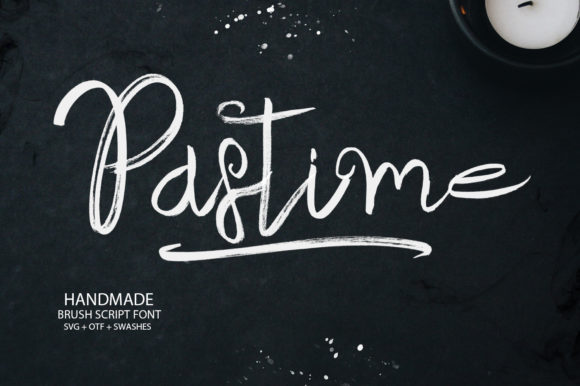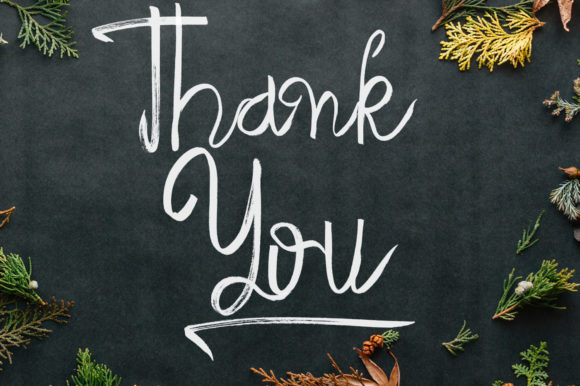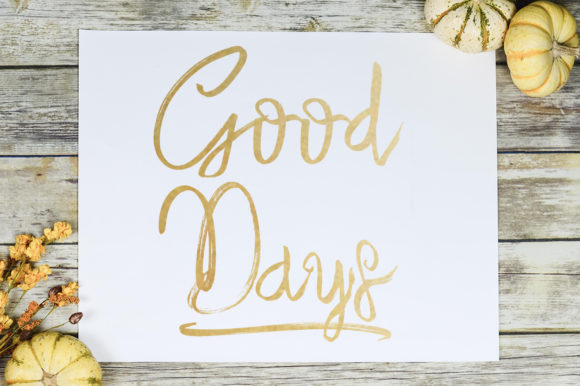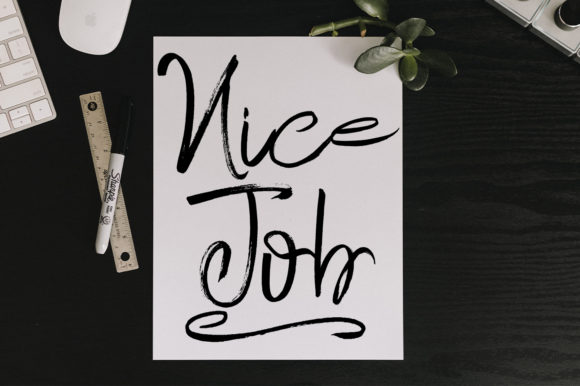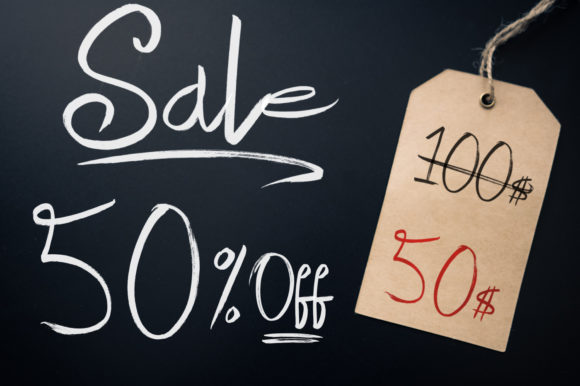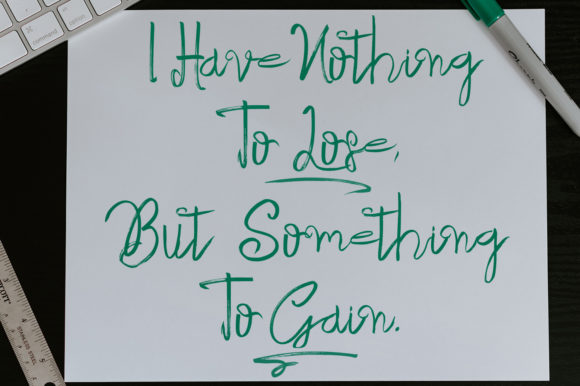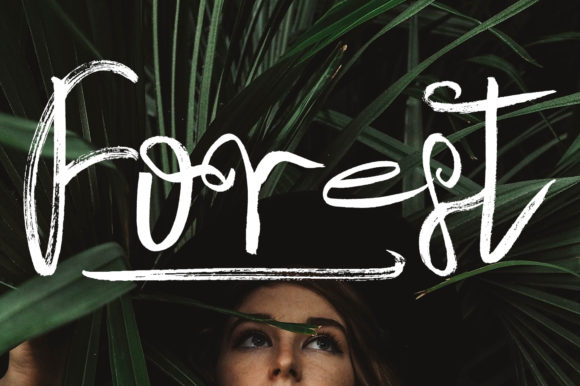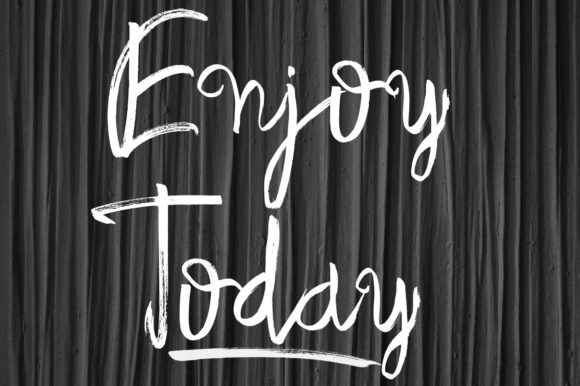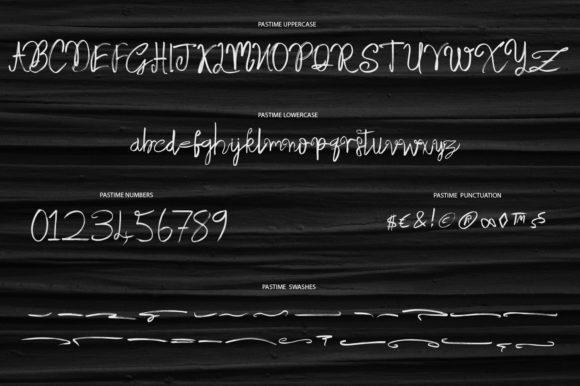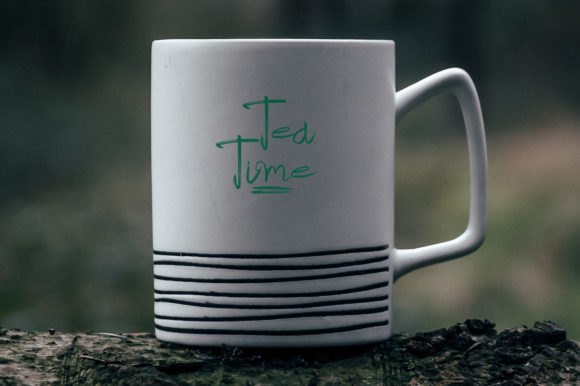
HomeScript FontsPastime Font Script Fonts Pastime Font FacebookXPinterestWhatsApp Pastime Font Poster 2 Pastime Font Poster 3 Pastime Font Poster 4 Pastime Font Poster 5 Pastime Font Poster 6 Pastime Font Poster 7 Pastime Font Poster 8 Pastime Font Poster 9 Pastime Font Poster 10 About Pastime Font Pastime is a sweet font inspired by fun moments. Get ready to add beauty and fun to your designs. DOWNLOAD NOW People also explored Snowdrift Font Aveline Font Butterfly Font Zucchini Font Funny Christmas Font Attomi Gilbert Font Stay Strong Font Puertariko Font She Hungry Font 369 0 TagsPastime Font Previous articleSolo FontNext articleRose Font LEAVE A REPLY Cancel reply Comment: Please enter your comment! Name:* Please enter your name here Email:* You have entered an incorrect email address! Please enter your email address here Website: Save my name, email, and website in this browser for the next time I comment. Personal Use Free Winter Soldier Personal Use Free Read more about this font Batik Classic Personal Use Free Read more about this font Pattern Personal Use Free Read more about this font Cinderella Personal Use Free Read more about this font BLOG Modern Sans-Serif Fonts That Brands Love in 2025 In 2025, modern sans-serif fonts remain a top choice for brands looking to project clarity, professionalism, and... How to Install and Use Fonts on Windows, macOS, and Web Projects Where to Buy American Fonts Online in 2024 5 Fonts That Will Dominate Design Trends in 2026